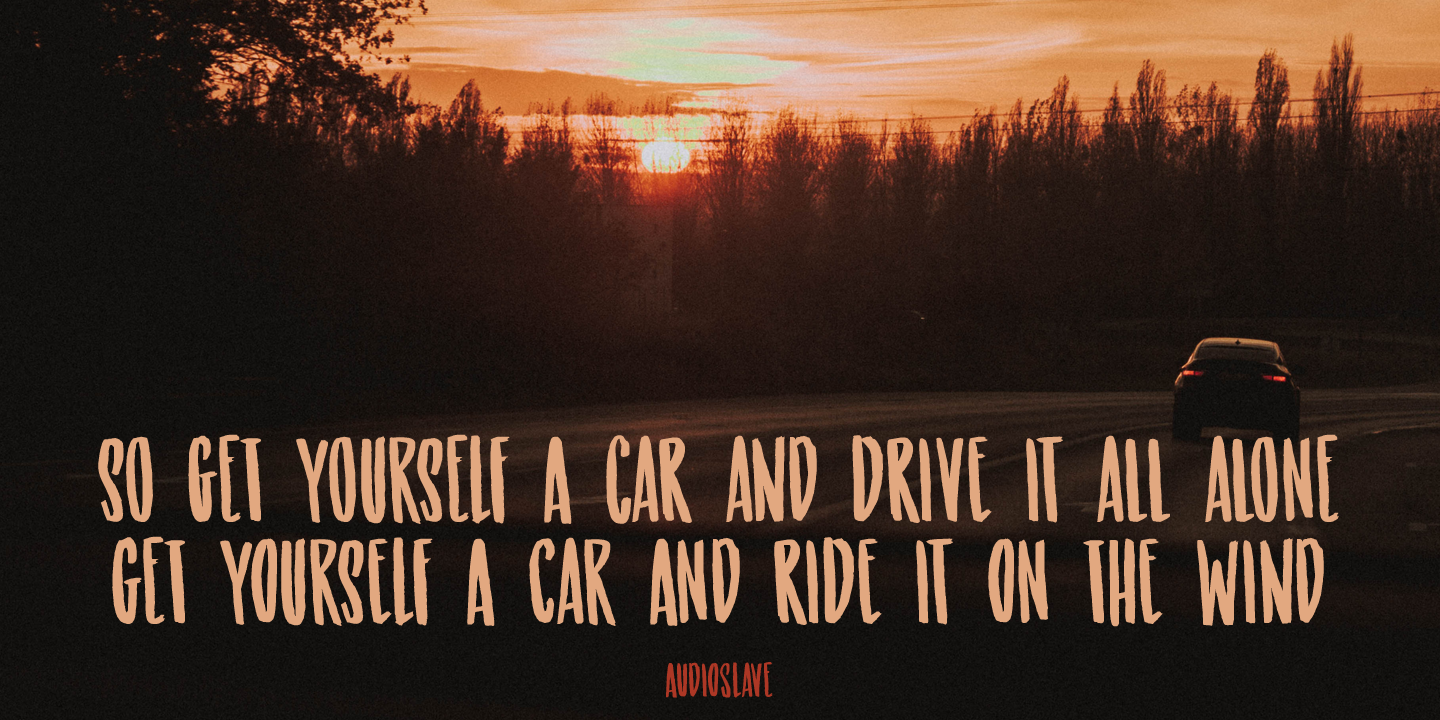
This high-speed typeface is perfect for automotive brands, racing events, action movie titles, car dealerships, speed contests, motorcycle manufacturers, escape room experiences, adventure travel agencies, adrenaline sports branding, fast delivery services, racing games, automotive magazines, and high-octane entertainment campaigns. The font's dynamic design makes it ideal for projects that celebrate speed, freedom, and the exhilarating rush of high-velocity adventures and fast-paced excitement.
Getaway Car Font is exciting because it captures the pure adrenaline and freedom of high-speed escape through its aerodynamic letterforms and velocity-inspired character structure. The font's streamlined angles and racing proportions create an atmosphere of speed, urgency, and unstoppable momentum, making it perfect for brands that want to convey excitement, liberation, and the thrill of breaking free from limitations. Its fast-moving personality ensures instant energy while maintaining excellent readability across various speed applications.
The Getaway Car Font family includes multiple velocity variations: Light Cruise, Regular Drive, Medium Accelerate, Bold Racing, and Black Nitro weights, each available in standard and italic versions. Special speed editions feature motion blur effects, racing stripes, and velocity ornaments that enhance the font's high-speed appeal, providing designers with comprehensive tools for creating authentic fast-paced communications.